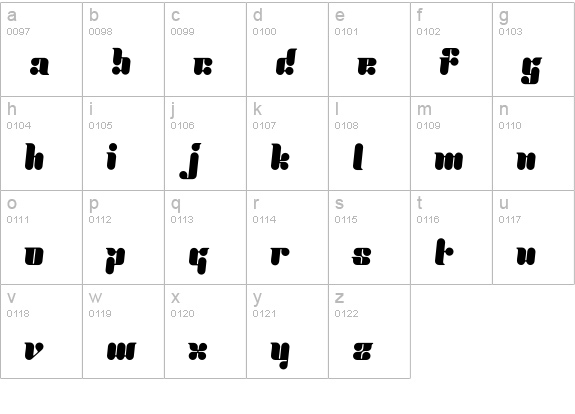
Proton-Alternate Font Details
Proton-Alternate is a modern and stylish typeface that exudes sophistication and elegance. With its sleek lines and contemporary design, this font is perfect for a wide range of design projects, from branding to editorial layouts. The Proton-Alternate font offers a unique twist on traditional sans-serif fonts, making it stand out from the crowd. What's even better is that Proton-Alternate is completely free to download at FontsMarket.com. That's right, you can add this stunning font to your collection without any cost. Whether you're a designer looking to elevate your projects or a business owner in need of a fresh look for your branding, Proton-Alternate is the perfect choice. Download it now and start creating eye-catching designs today!